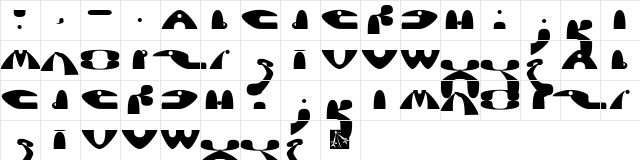
Saz Regular Free Font
Saz Regular
Foundry: Frappe
Designer: Jason Skoog
Design Context for Saz
Saz is a composed and adaptable typeface that performs quietly and consistently across a wide range of design contexts.